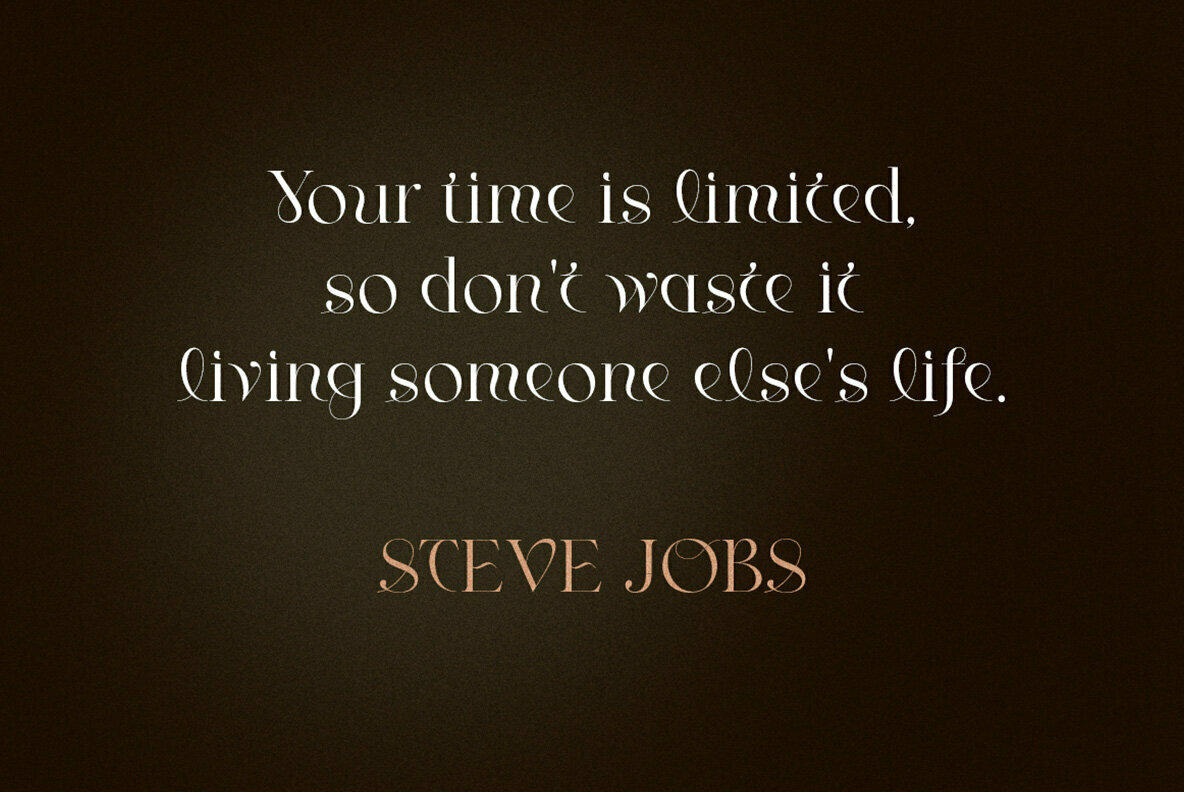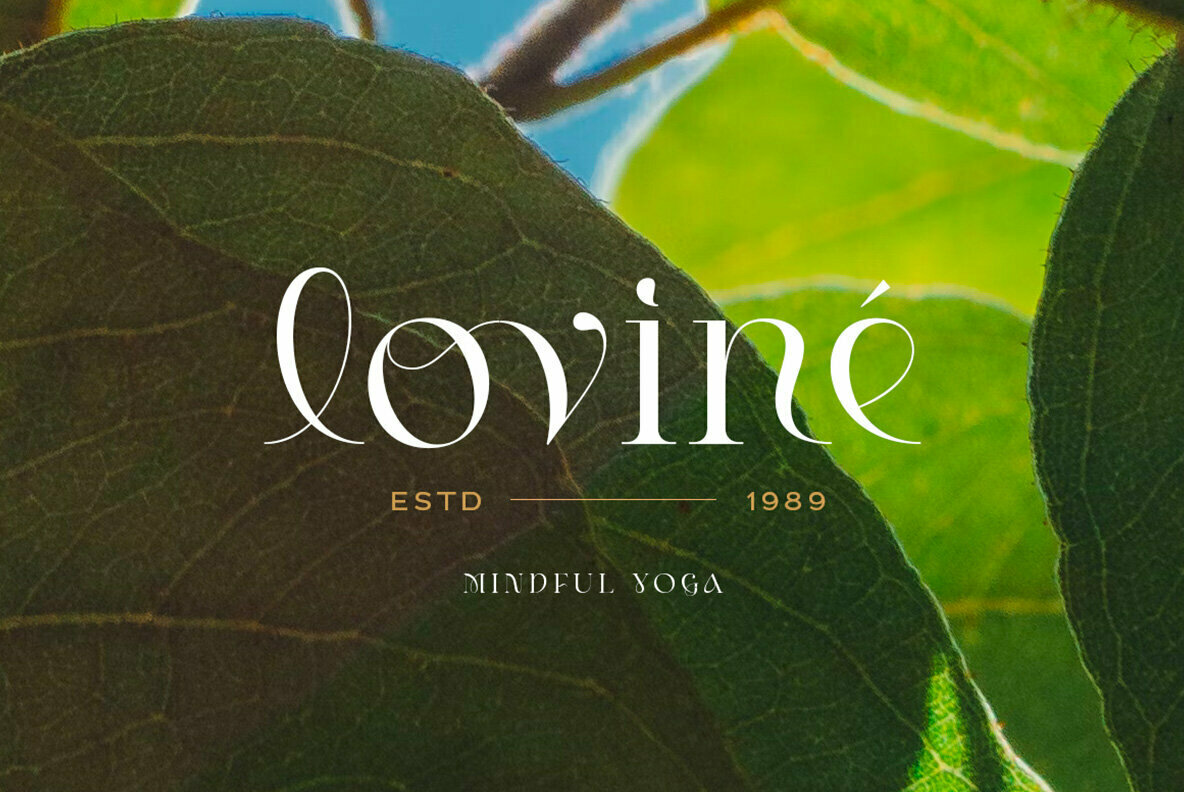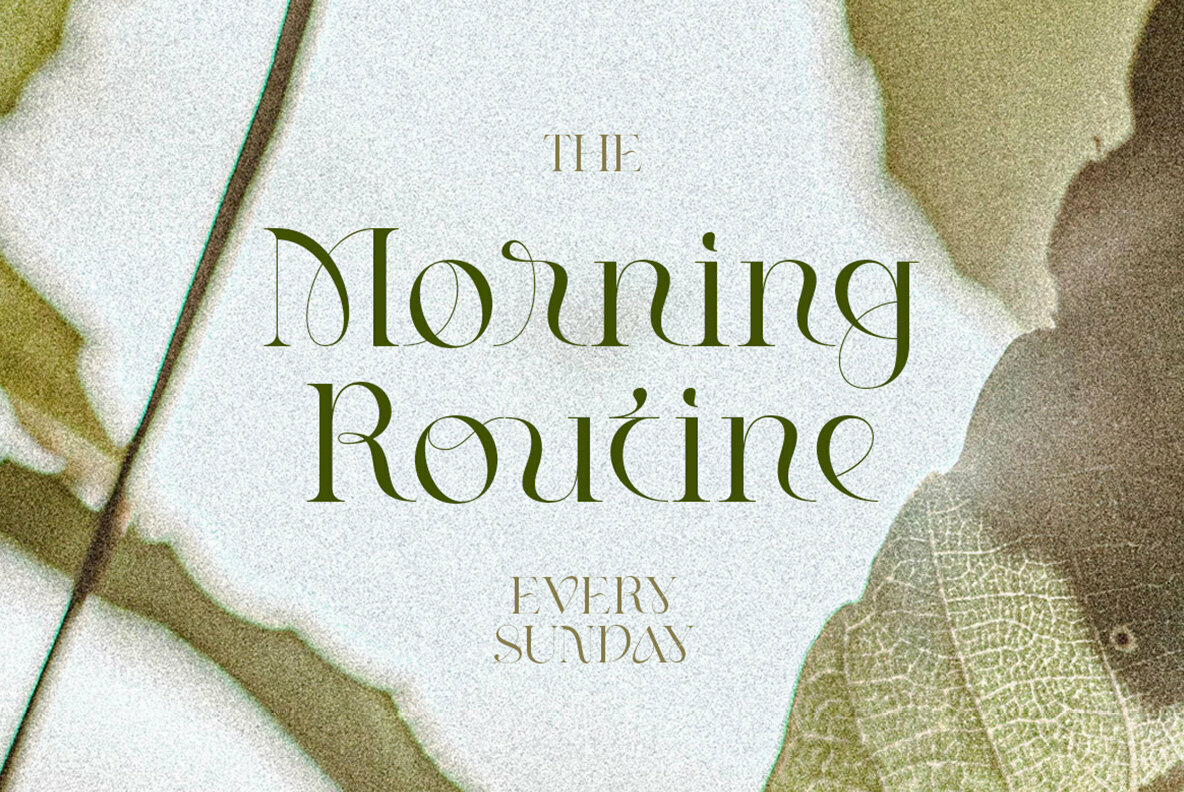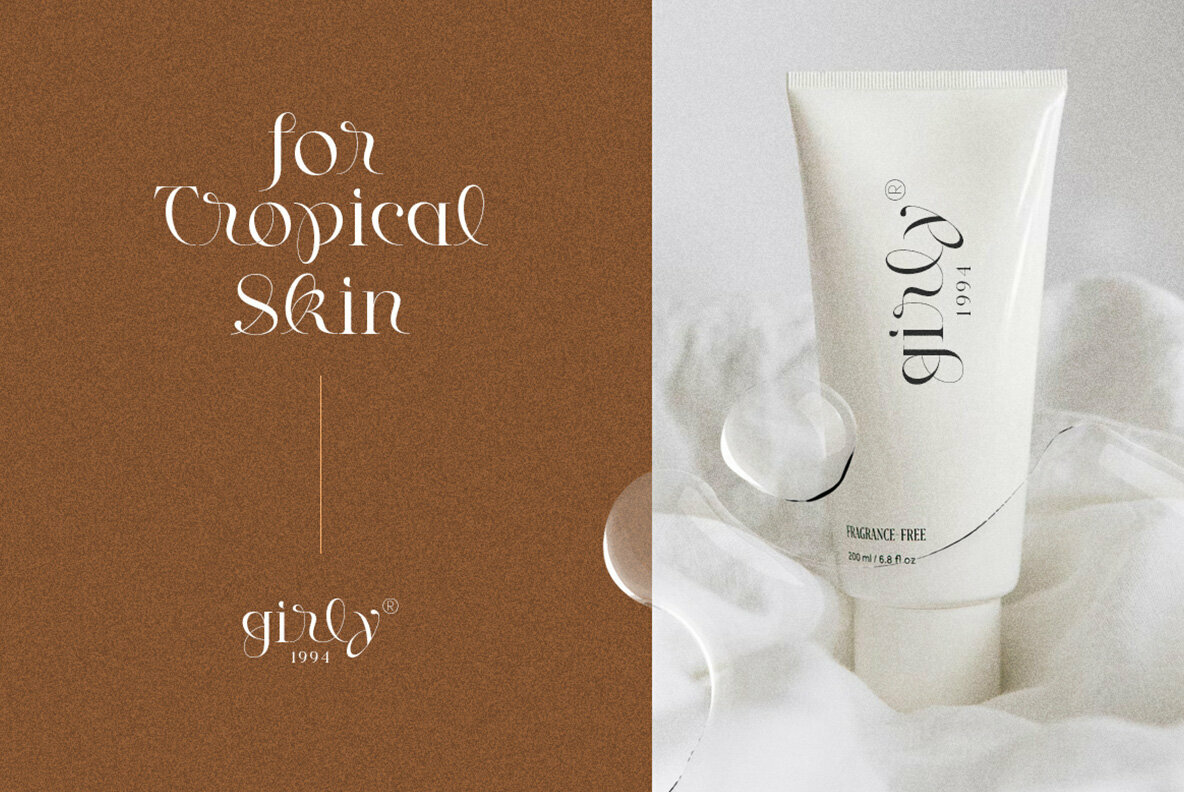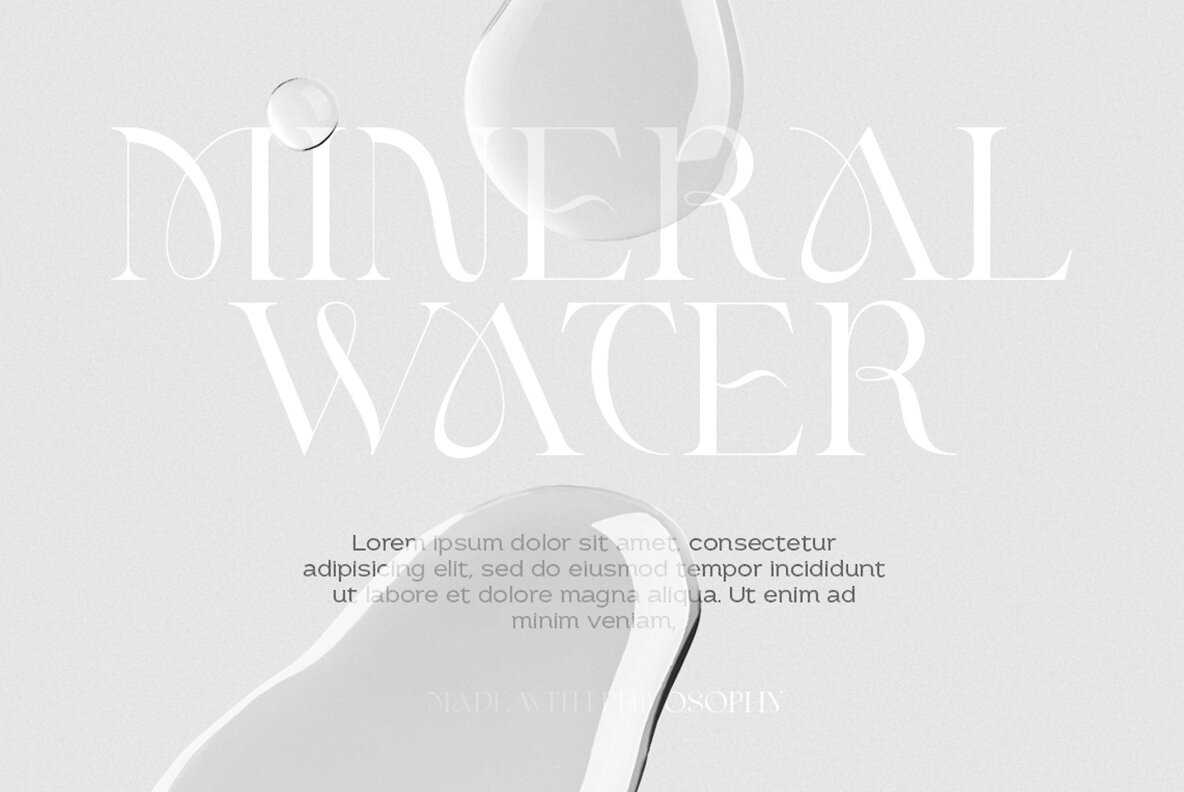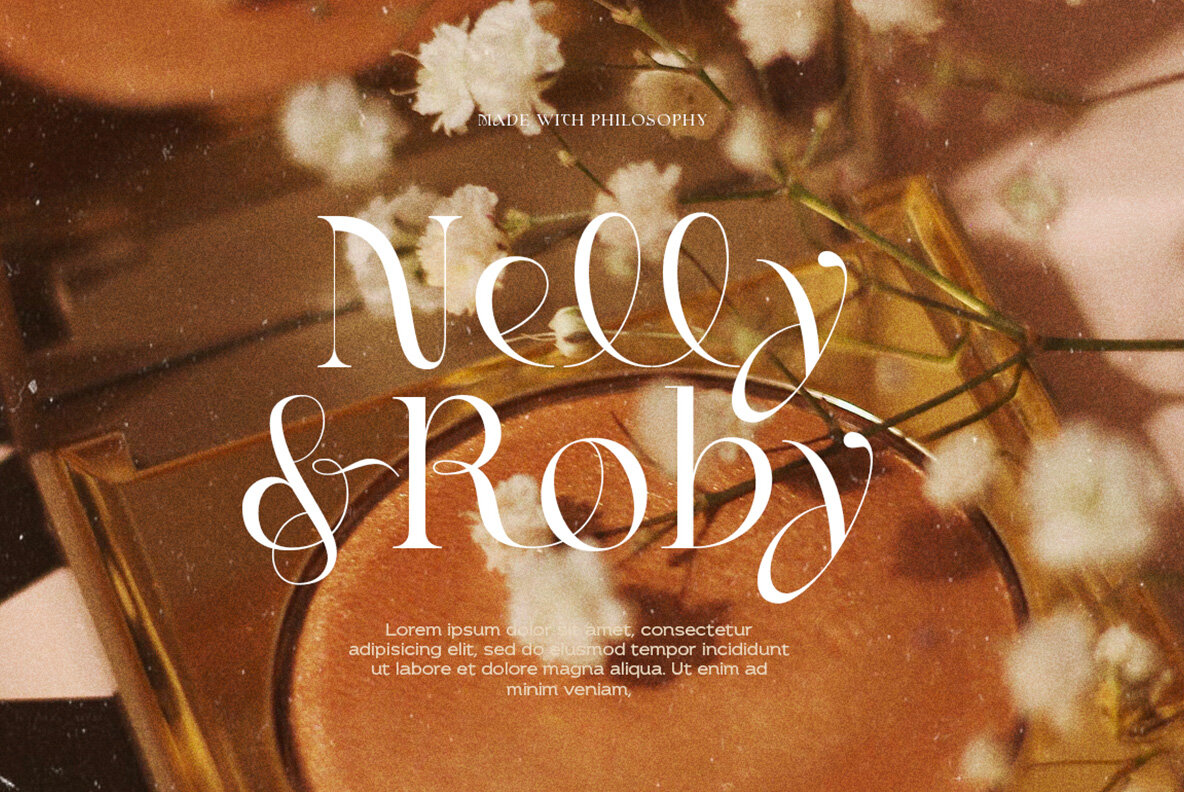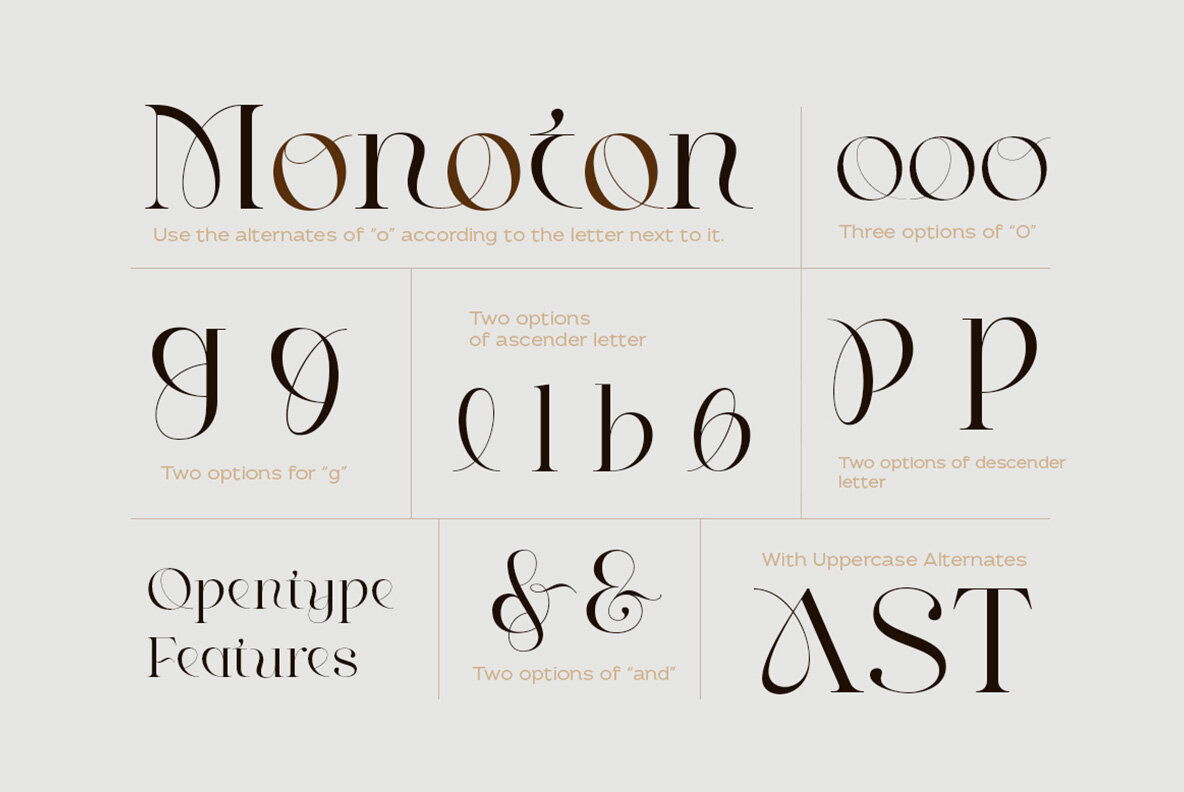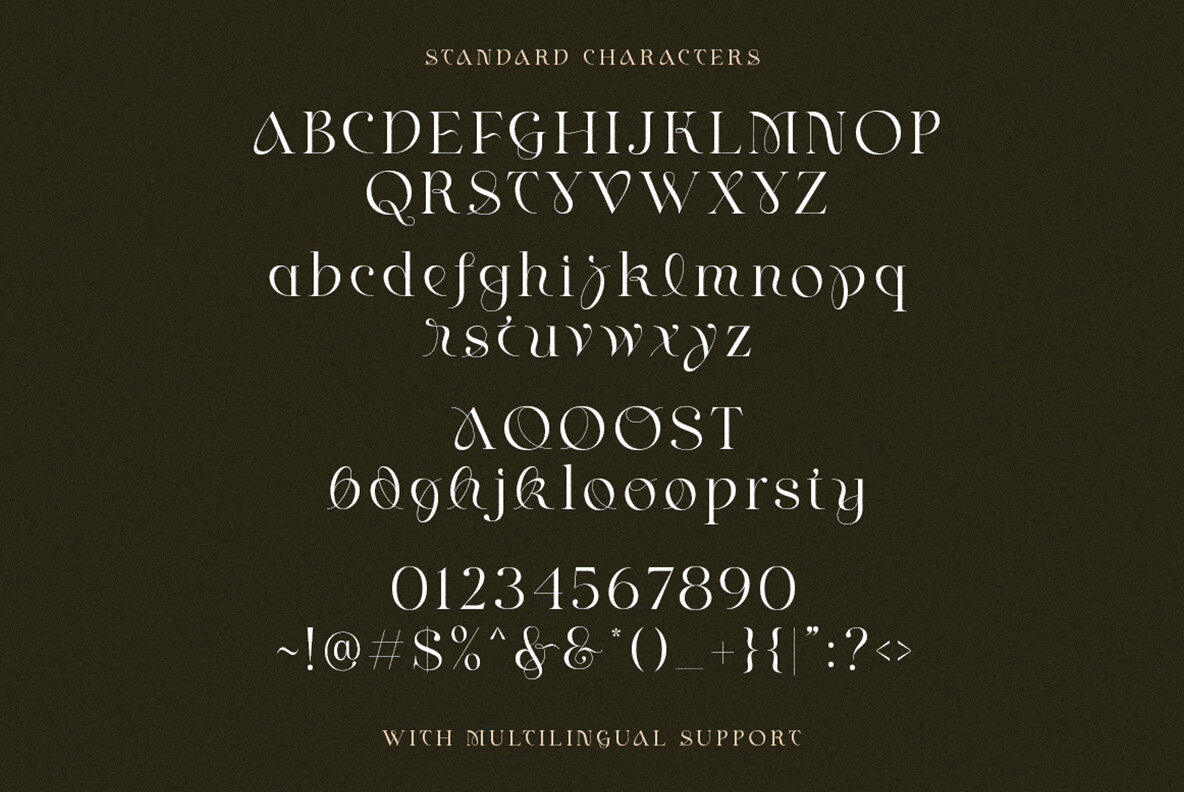
Philosophy Font
Philosophy Regular
Philosophy is the perfect font for your next presentation or branding project! This elegant serif comes with features that will make everything you design more stunning, beautiful and sophisticated. You can use this typeface on anything from wedding invitations to logos - no matter what kind of thing it may be used in Philosophy has got a style suitable just right out there waiting for you.
- Number & Symbol
- Multi language